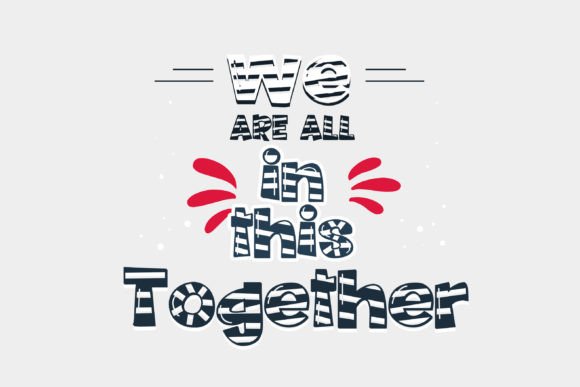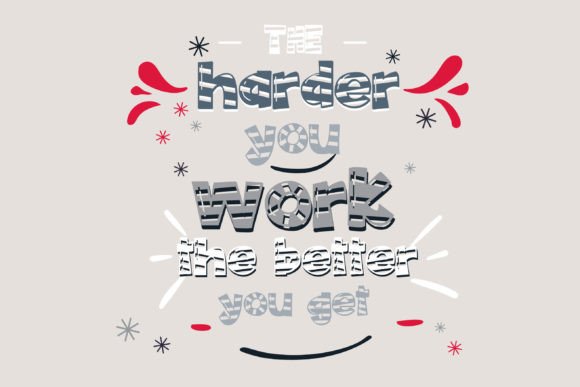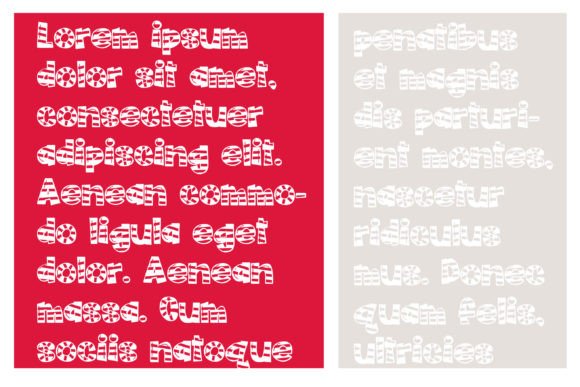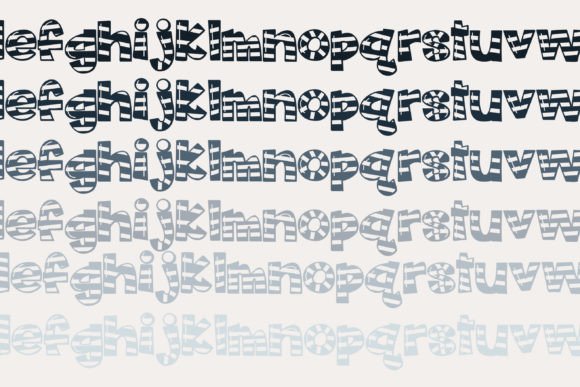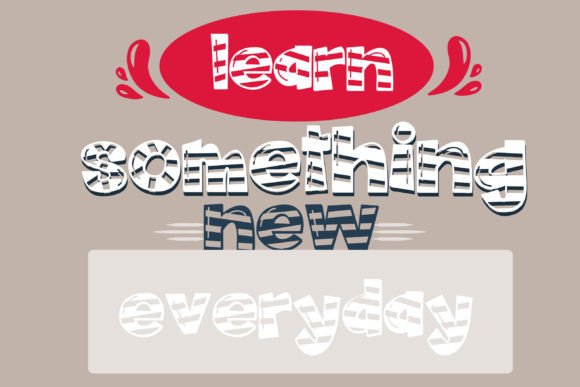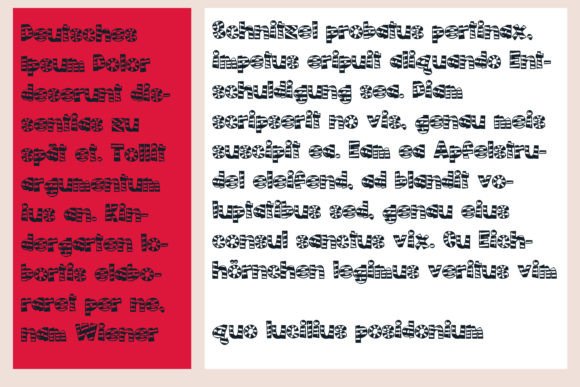
Goblin Cane Font: A Peppermint Stripe Delight for Crafty Designs
Are you a designer or crafter looking for a unique and playful font to add a touch of whimsy to your projects? Look no further than the Goblin Cane Font, a lovely and cute decorative font featuring peppermint stripes. This charming font is sure to bring a smile to your face and inspire your creativity.
What is Goblin Cane Font?
Goblin Cane Font is a decorative font designed to resemble the classic peppermint candy canes of the holiday season. The font features bold, red and white stripes, giving it a fun and festive look that’s perfect for crafty designs. Whether you’re creating holiday cards, gift tags, or other paper crafts, Goblin Cane Font is sure to add a touch of magic to your projects.
Key Features of Goblin Cane Font
• Peppermint Stripe Design: The font features a unique peppermint stripe design that’s sure to add a touch of whimsy to your projects.
• Cute and Playful: Goblin Cane Font is a cute and playful font that’s perfect for crafty designs, holiday projects, and more.
• High-Quality Design: The font is designed with high-quality graphics, ensuring that it looks great even at large sizes.
Uses for Goblin Cane Font
Goblin Cane Font is a versatile font that can be used in a variety of crafty designs, including:
• Holiday Cards and Gift Tags: Add a touch of festive cheer to your holiday cards and gift tags with Goblin Cane Font.
• Paper Crafts: Use Goblin Cane Font to add a playful touch to your paper crafts, such as scrapbooking pages, journal entries, and more.
• Signs and Banners: Create eye-catching signs and banners with Goblin Cane Font, perfect for parties, events, and more.
• Digital Designs: Use Goblin Cane Font in your digital designs, such as social media graphics, blog posts, and more.
Tips for Using Goblin Cane Font
Here are a few tips for using Goblin Cane Font in your designs:
• Pair with Other Fonts: Pair Goblin Cane Font with other fonts to create a unique and interesting look.
• Experiment with Colors: Experiment with different colors to find the perfect combination for your design.
• Use in Combination with Images: Use Goblin Cane Font in combination with images, such as illustrations or photographs, to add a touch of personality to your design.
Goblin Cane Font is a fun and playful decorative font that’s perfect for crafty designs. With its peppermint stripe design and cute, playful look, it’s sure to add a touch of whimsy to your projects. Whether you’re a designer or crafter, Goblin Cane Font is a great addition to your font collection. So why wait? Add Goblin Cane Font to your projects today and enjoy the results!
Q: What type of font is Goblin Cane Font?
A: Goblin Cane Font is a decorative font featuring a peppermint stripe design.